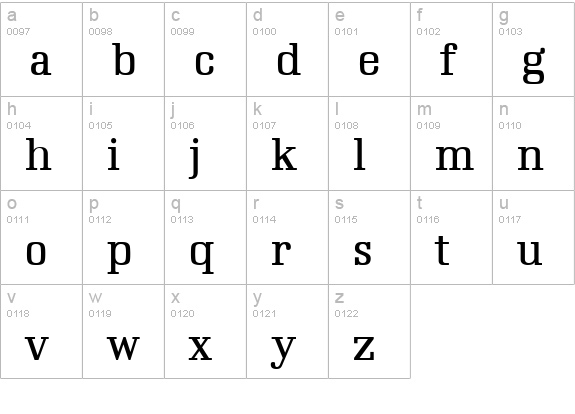
Napoleon Roman Font Details
Napoleon Roman font is a timeless and elegant typeface that exudes sophistication and charm. With its classic serifs and graceful curves, this font is perfect for adding a touch of refinement to any project. Whether you're designing a wedding invitation, creating a logo, or crafting a vintage-inspired poster, Napoleon Roman font will elevate your work to new heights. The best part? Napoleon Roman font is available for free download at FontsMarket.com. This means you can enjoy the beauty and versatility of this font without any cost. Don't miss out on this opportunity to enhance your designs with the exquisite Napoleon Roman font. Download it today and let your creativity shine!